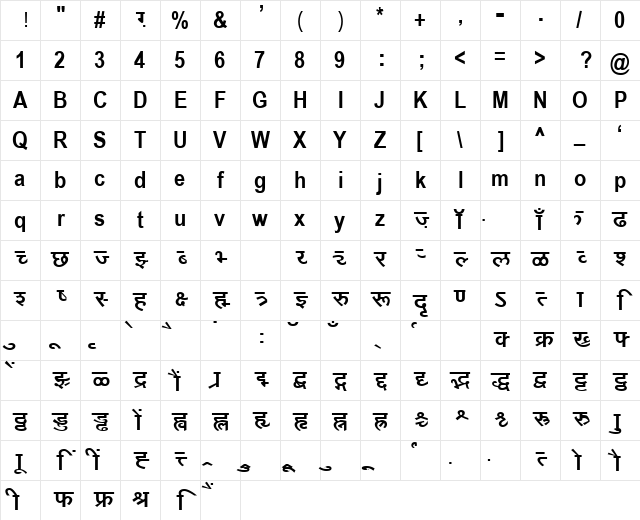
Complete AkrutiOfficeYogini-S Bold glyph index. Displaying only characters natively supported by AkrutiOfficeYogini-S Bold font.
AkrutiOfficeYogini-S is a composed and adaptable typeface that performs quietly and consistently across a wide range of design contexts. Its bold stroke weight gives it real presence on the page.